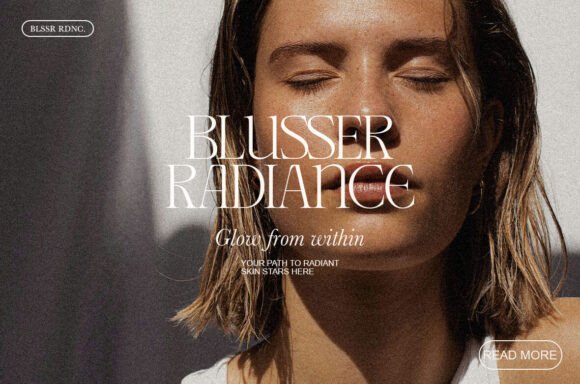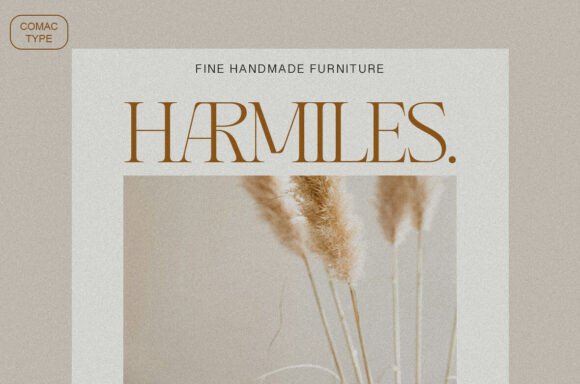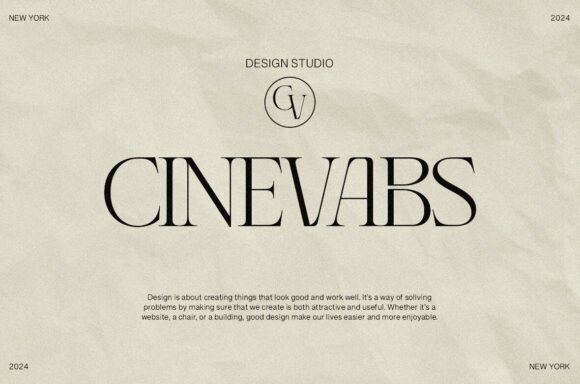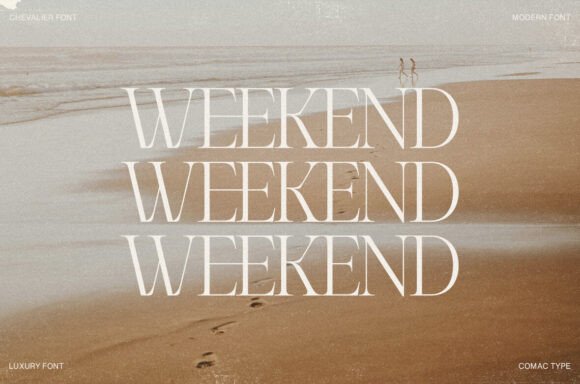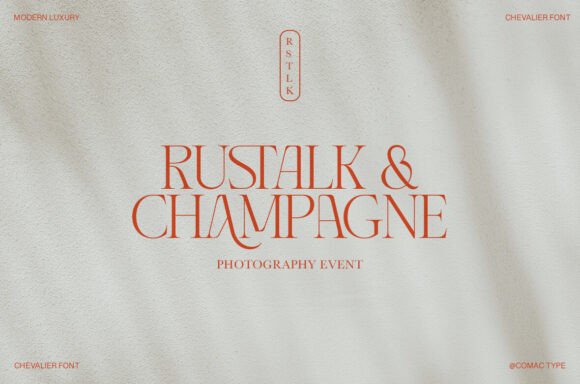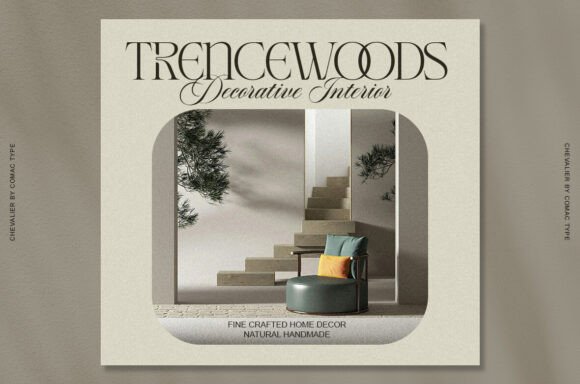
Introduction to Chevalier Font
CHEVALIER is multipurpose and unique display font, you can use it in modern and vintage design.
This font will suitable for any project, like branding, print template, logo and etc Chuten include uppercase and lowercase, ligature and alternate style, and also multilingual support.
Key Features of Chevalier Font
Chevalier Font offers exceptional quality and versatility, making it a valuable addition to your design toolkit. Whether you’re creating for personal projects or commercial use, Chevalier Font delivers professional results.